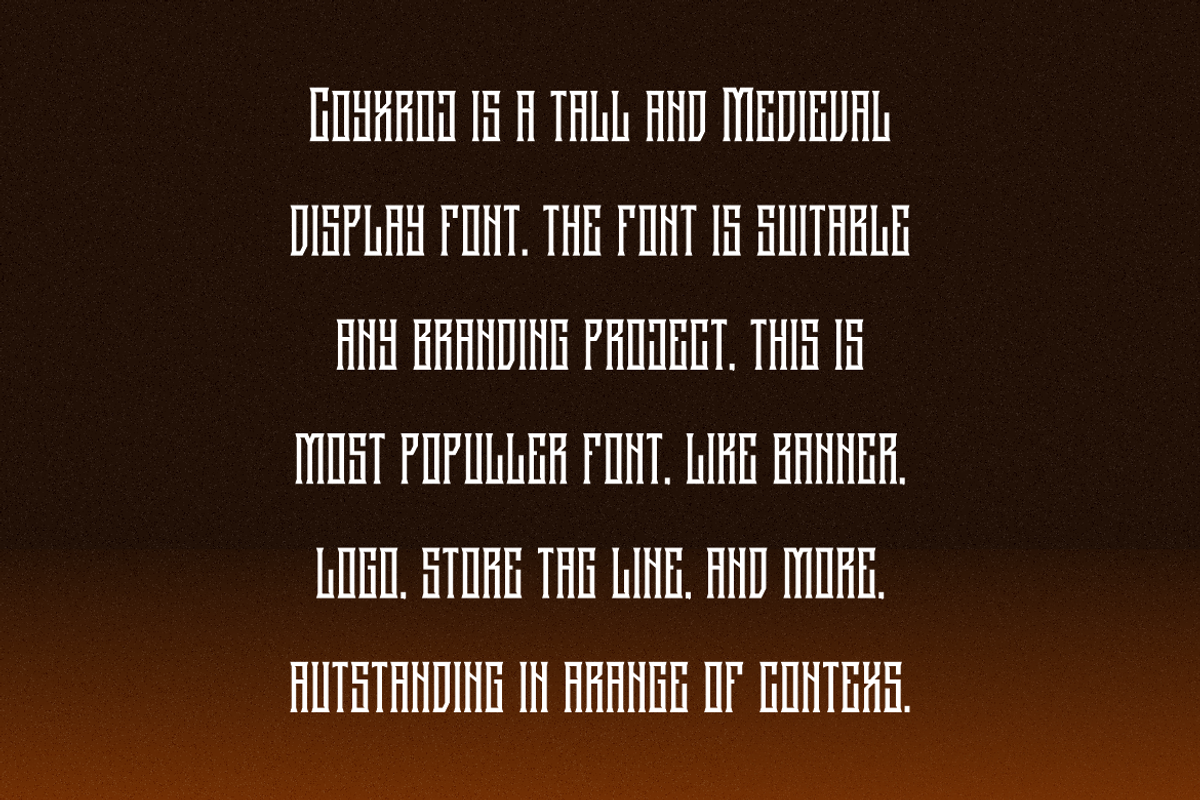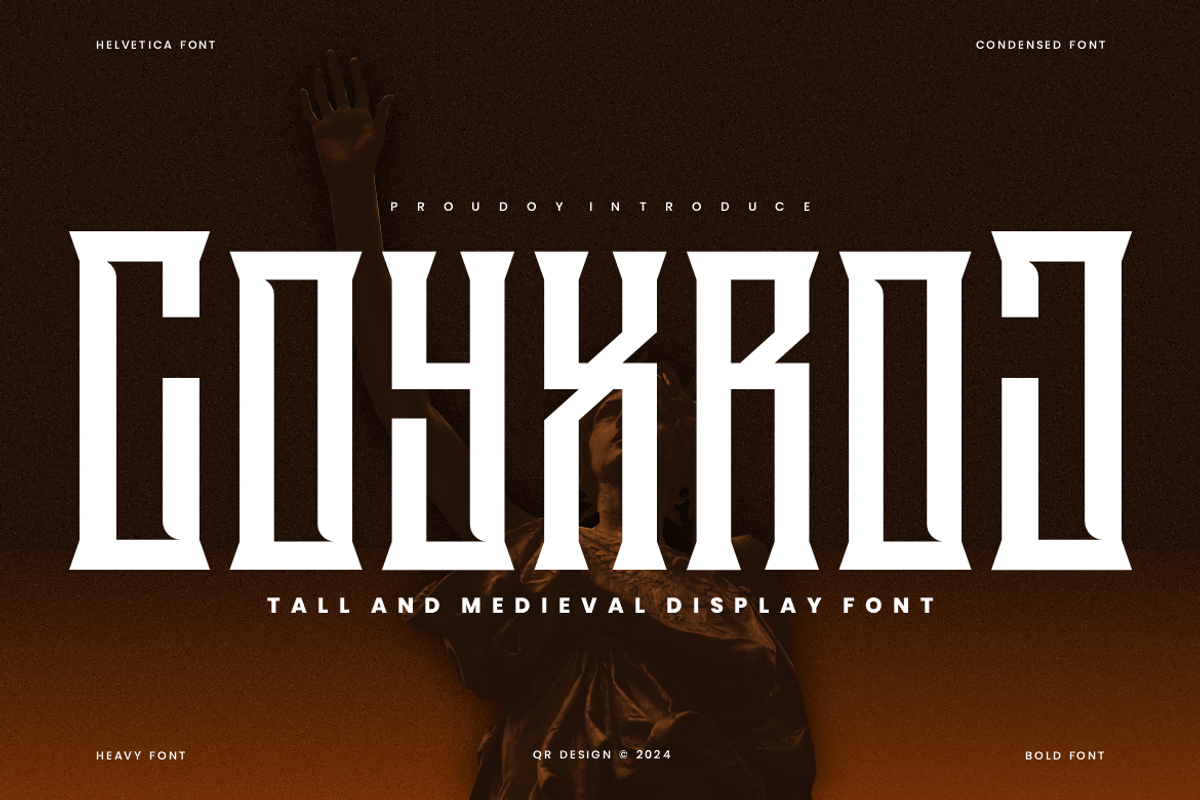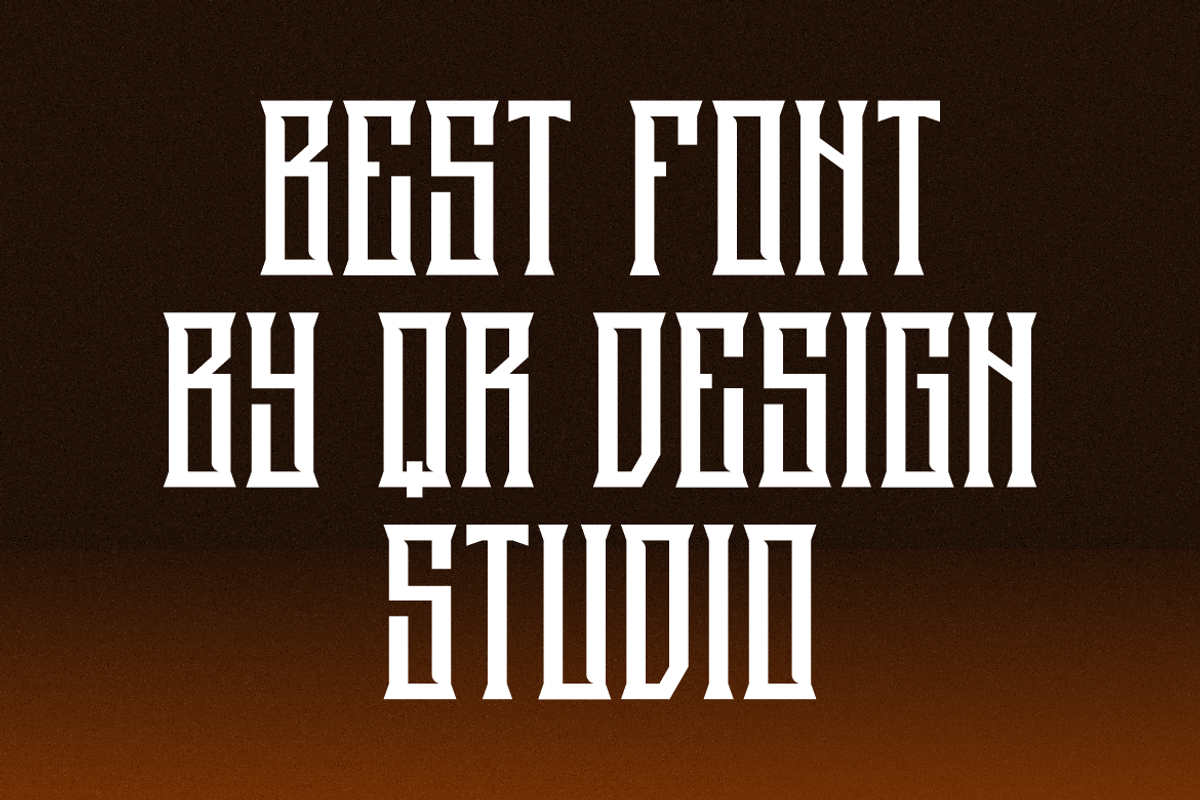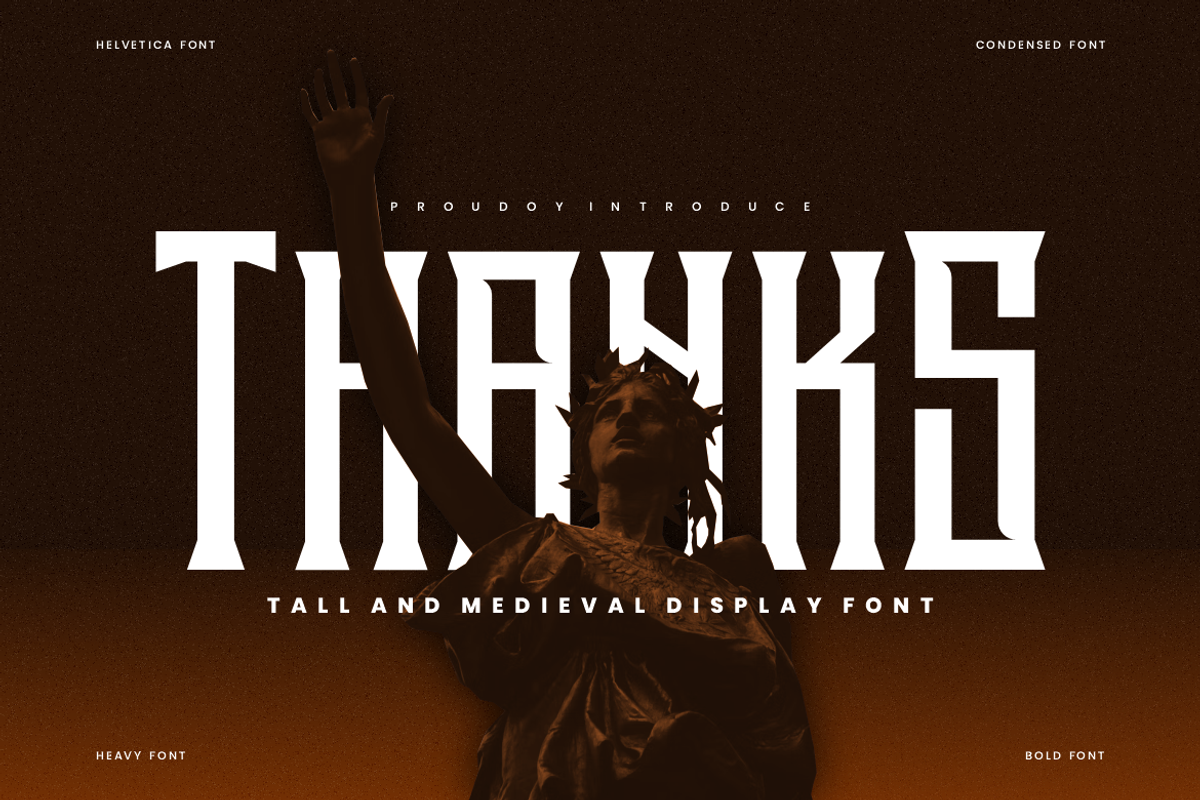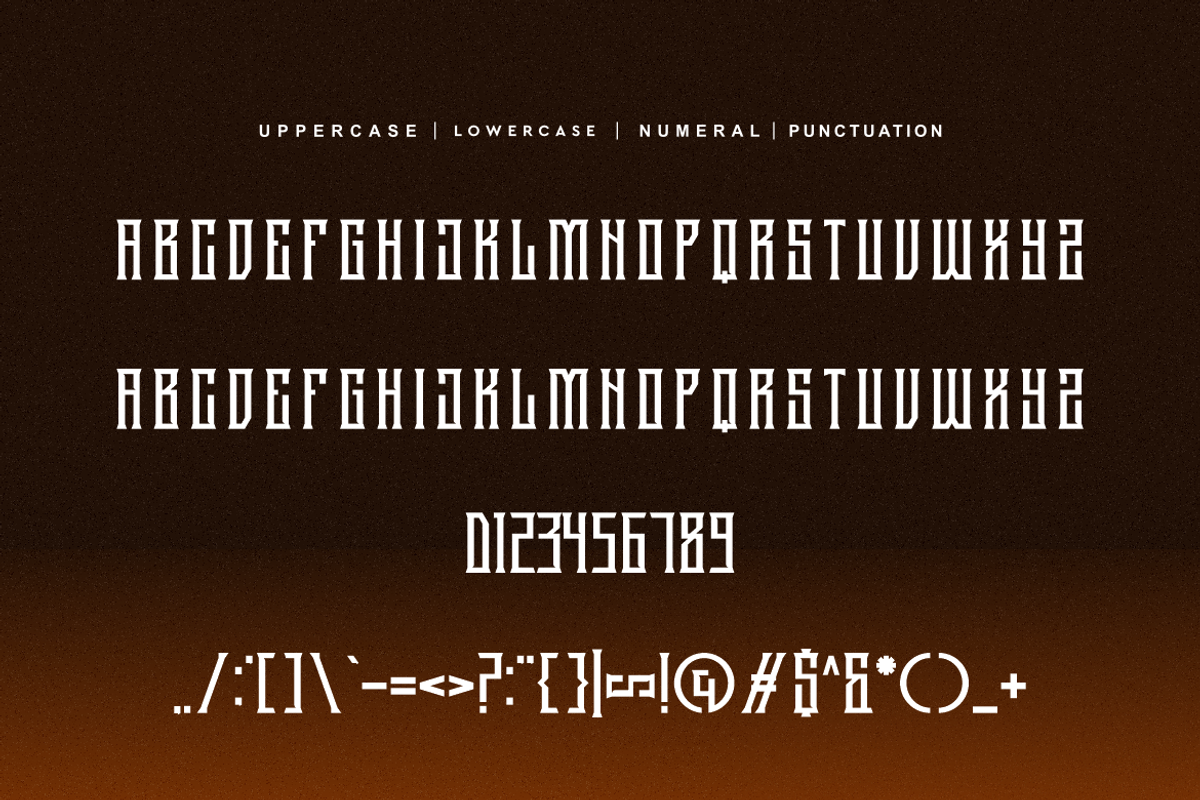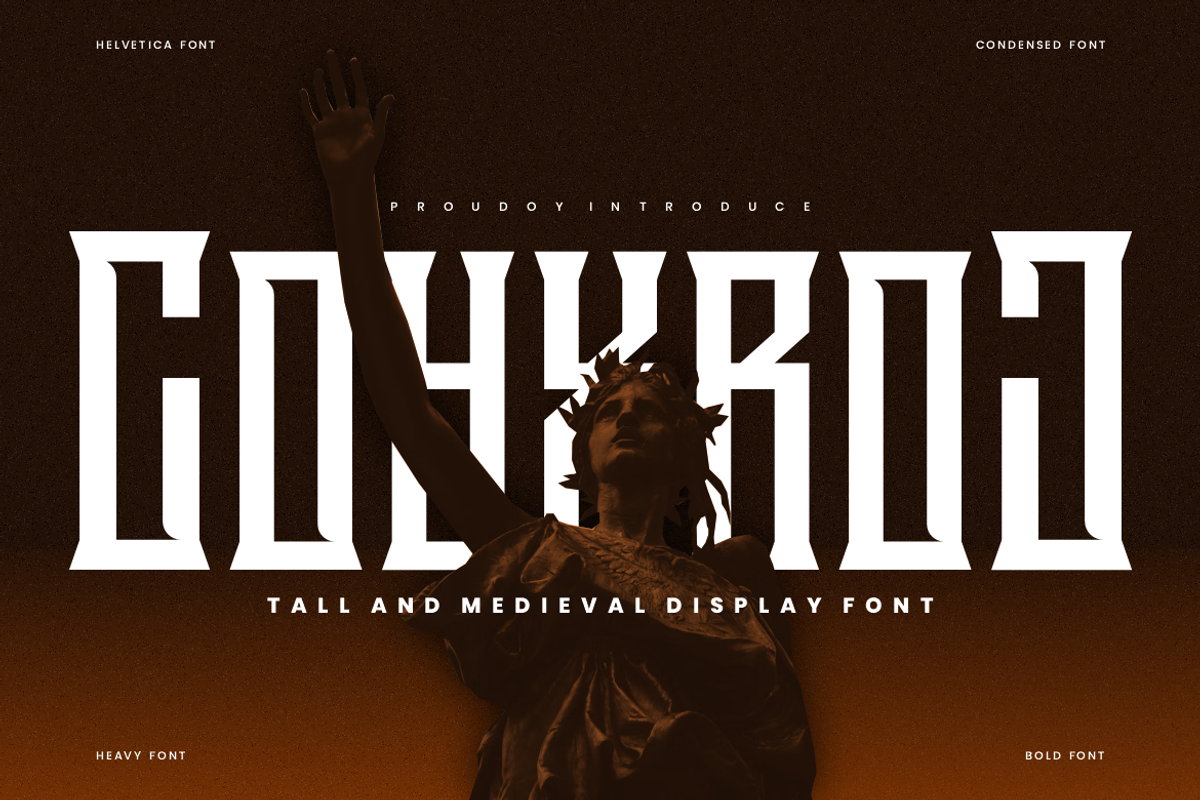
Coyxroj - Tall & Gothic Font
Coyxroj - Tall Font is a bold and authentic display font. The font is suitable for any branding project like poster, logo, sport, and many more. Outstanding in a wide range of contexts.